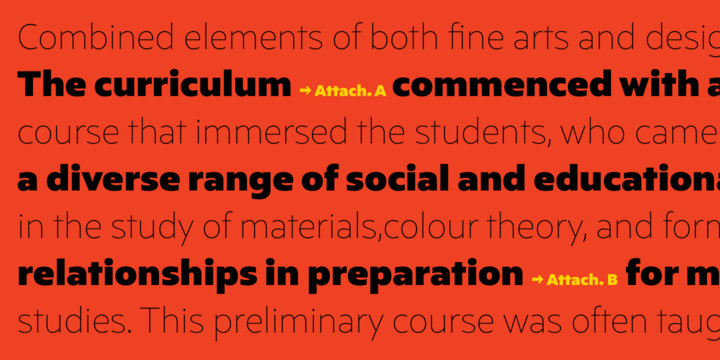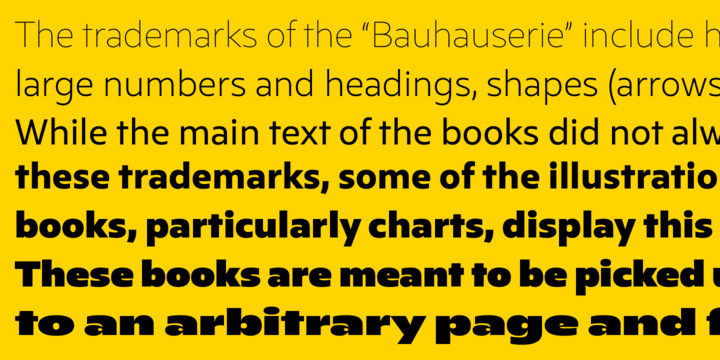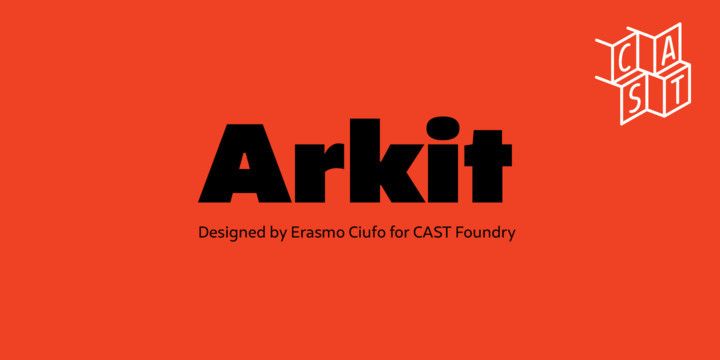
Arkit Font
Arkit is a ‘constructivist’ sans with a humanistic taste. Its geometric look hides an organic soul that can be felt rather than seen, as for instance in the strokes that are slightly tapered. Arkit features a big x-height and is suitable for signage and for many display applications, but it also performs well as a book face both in body copy and in captions and small-size texts.